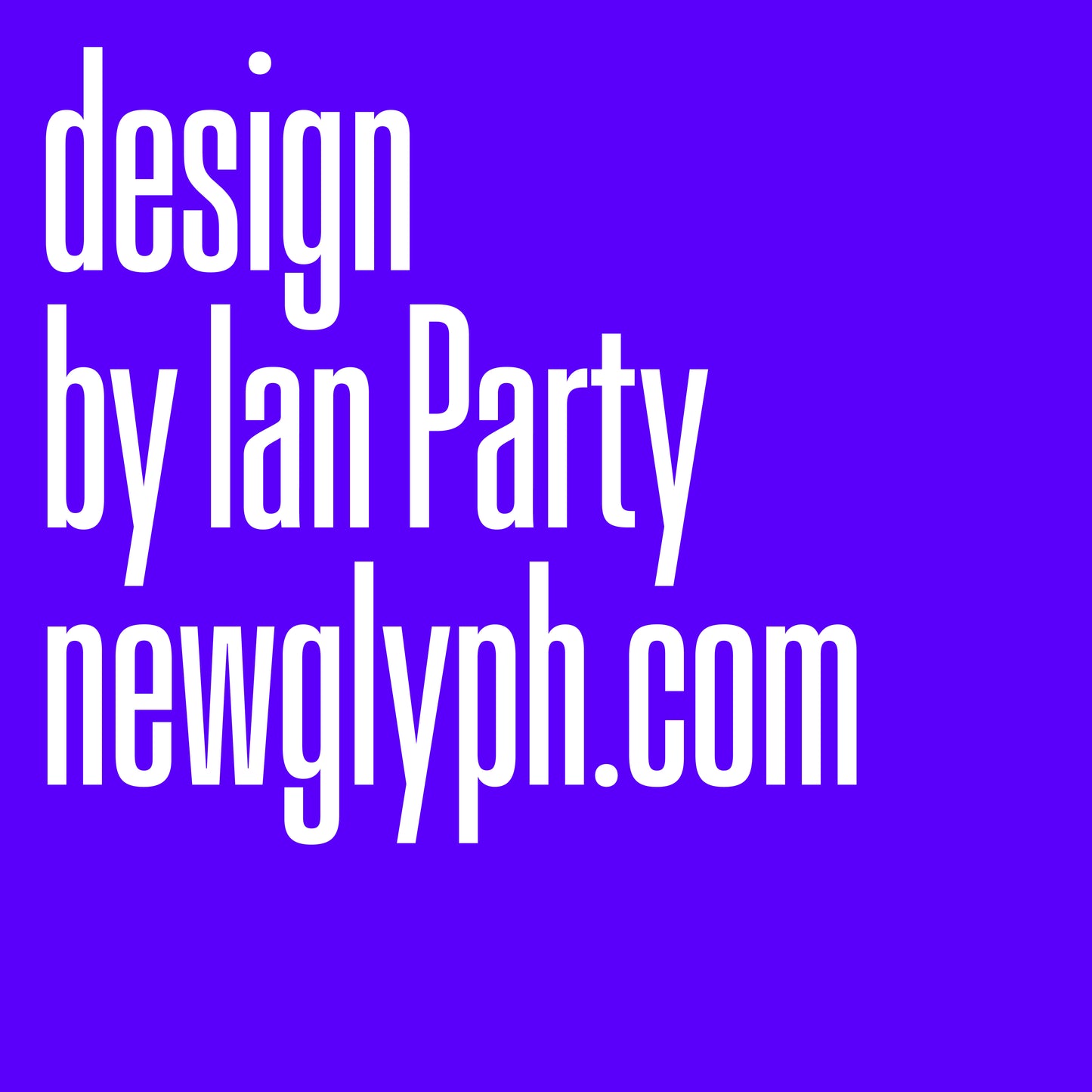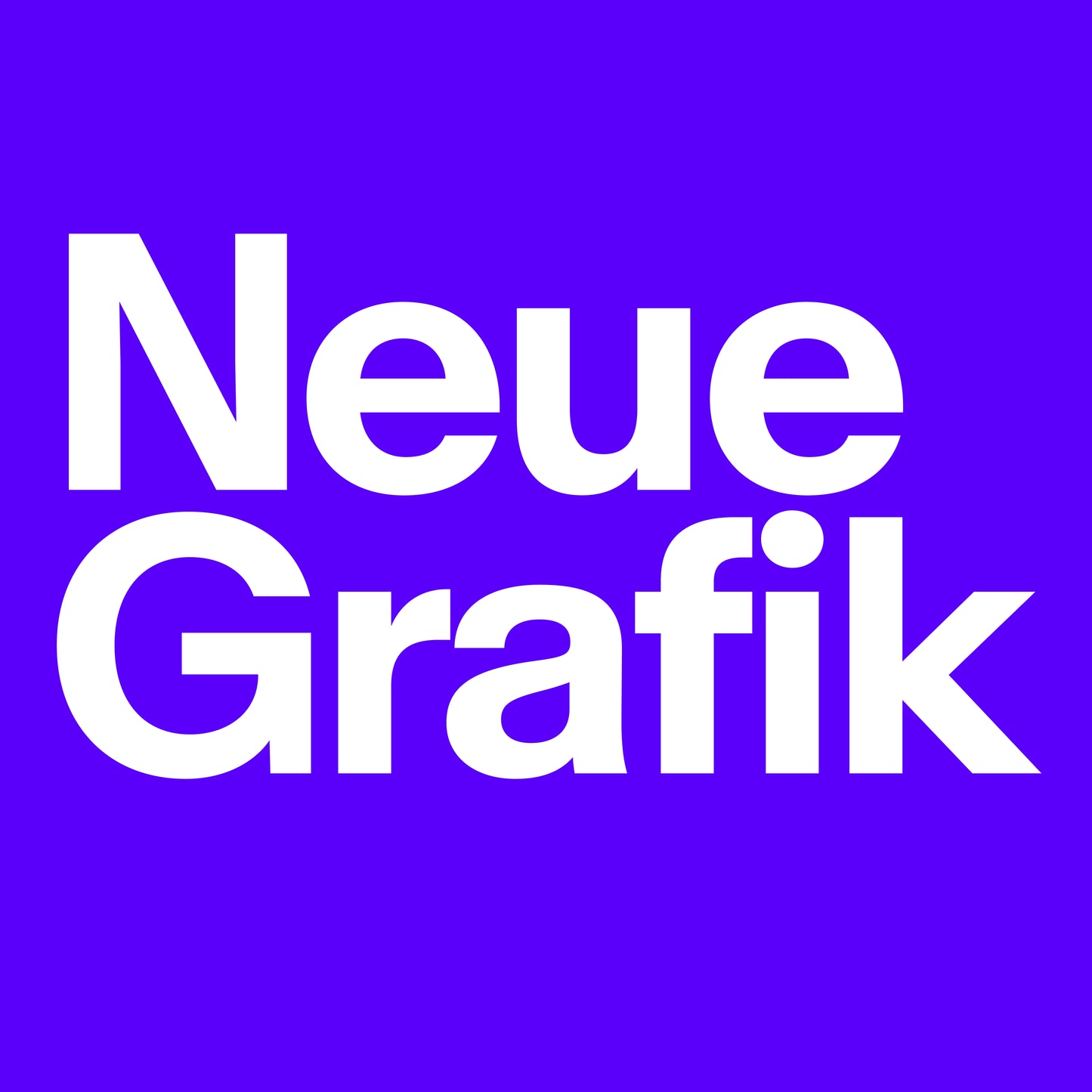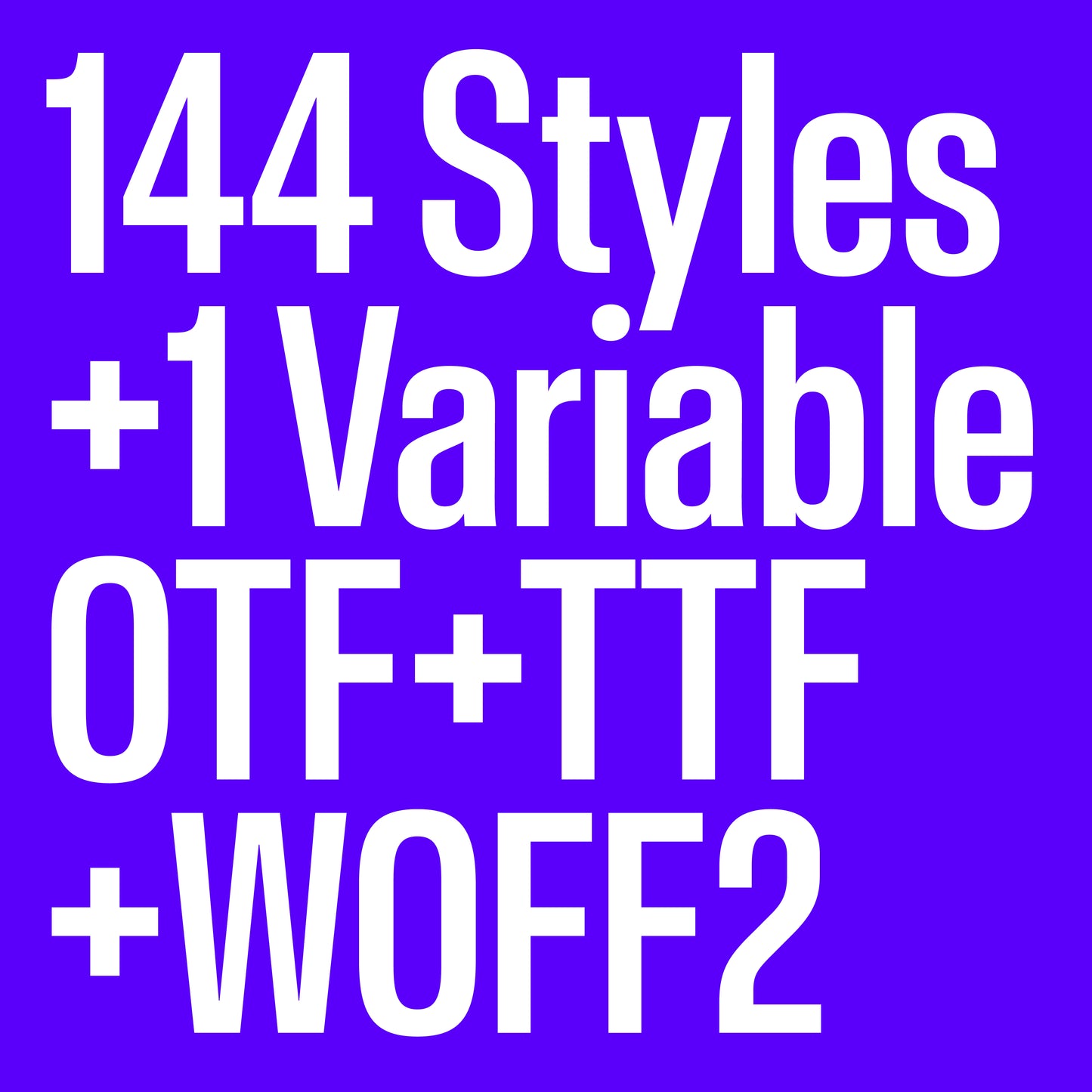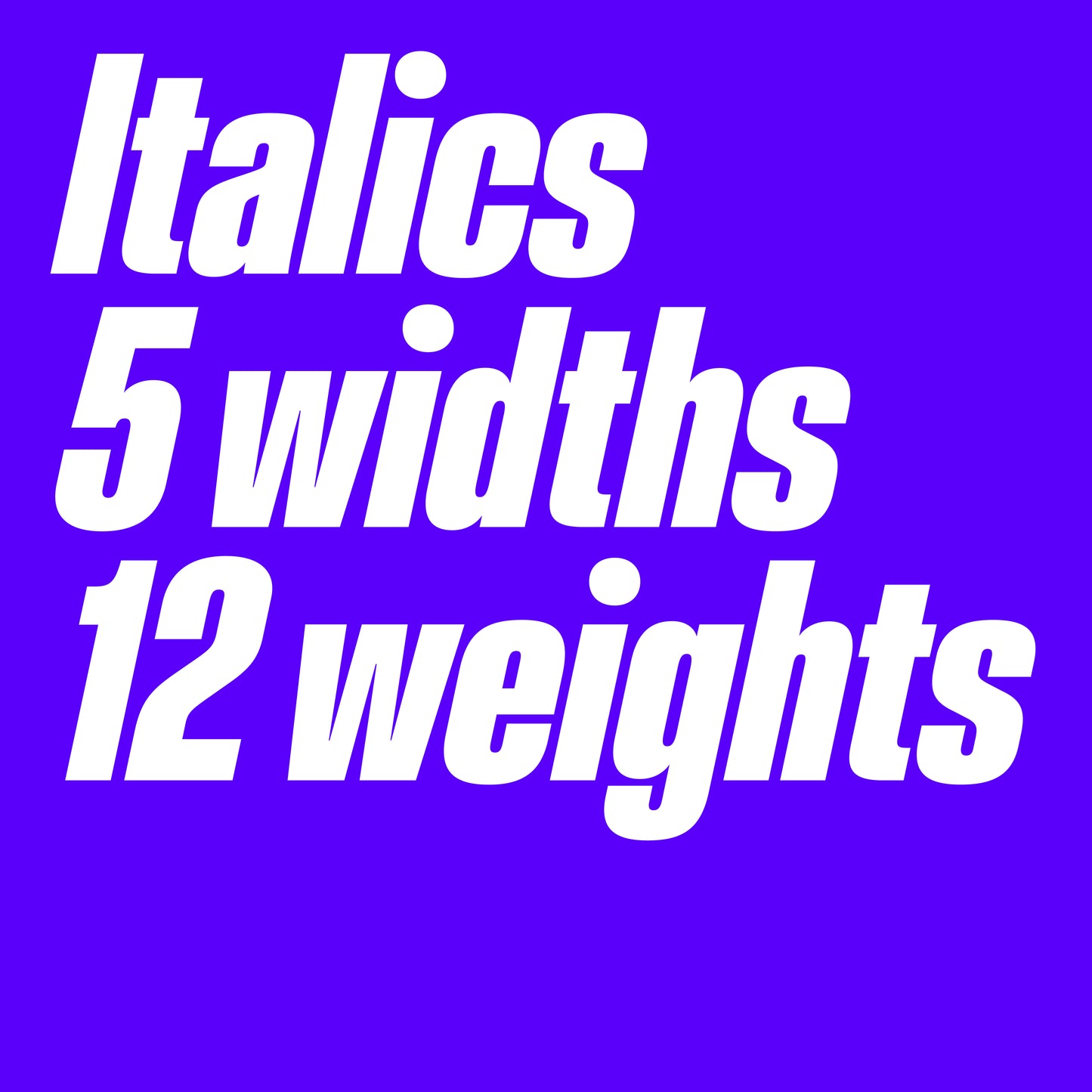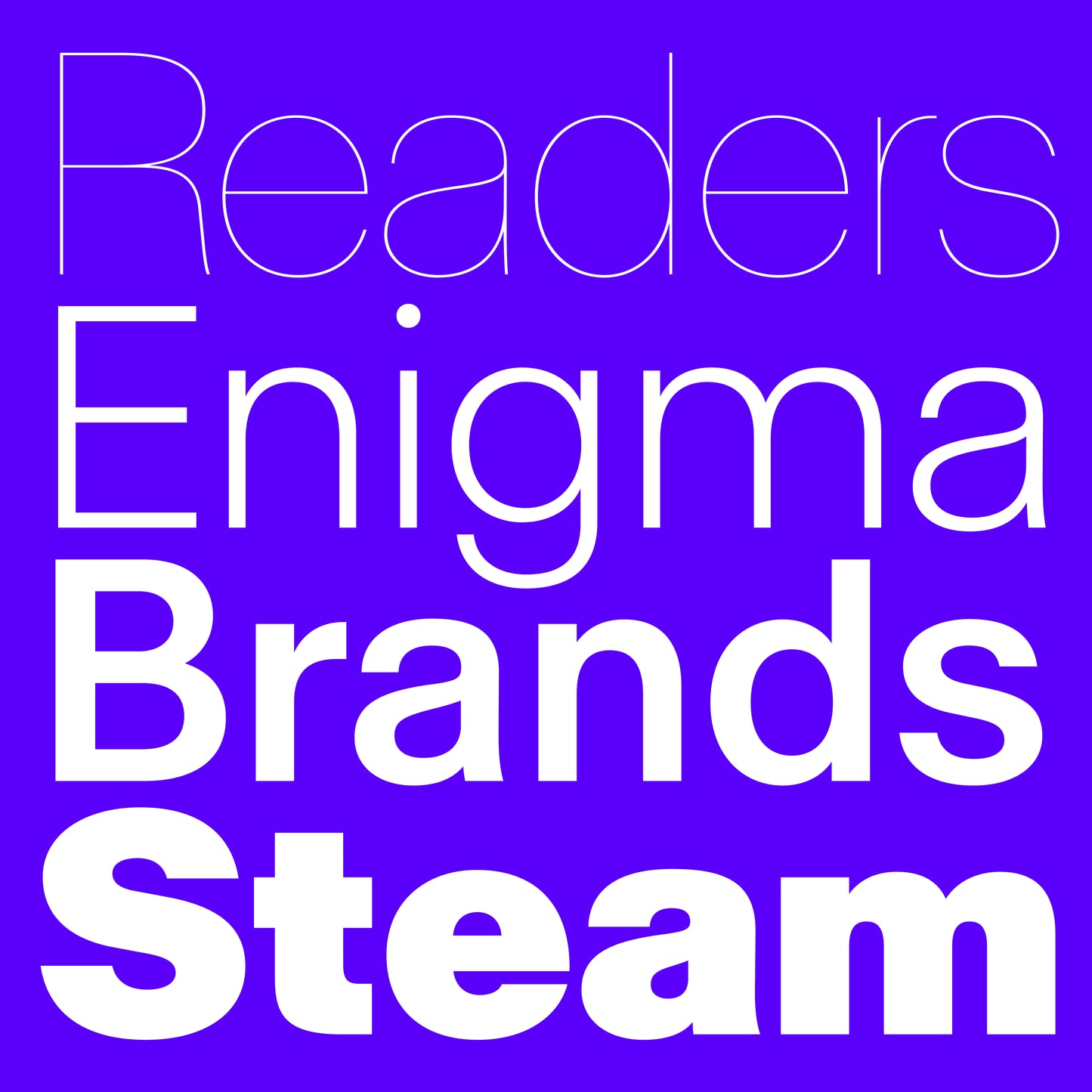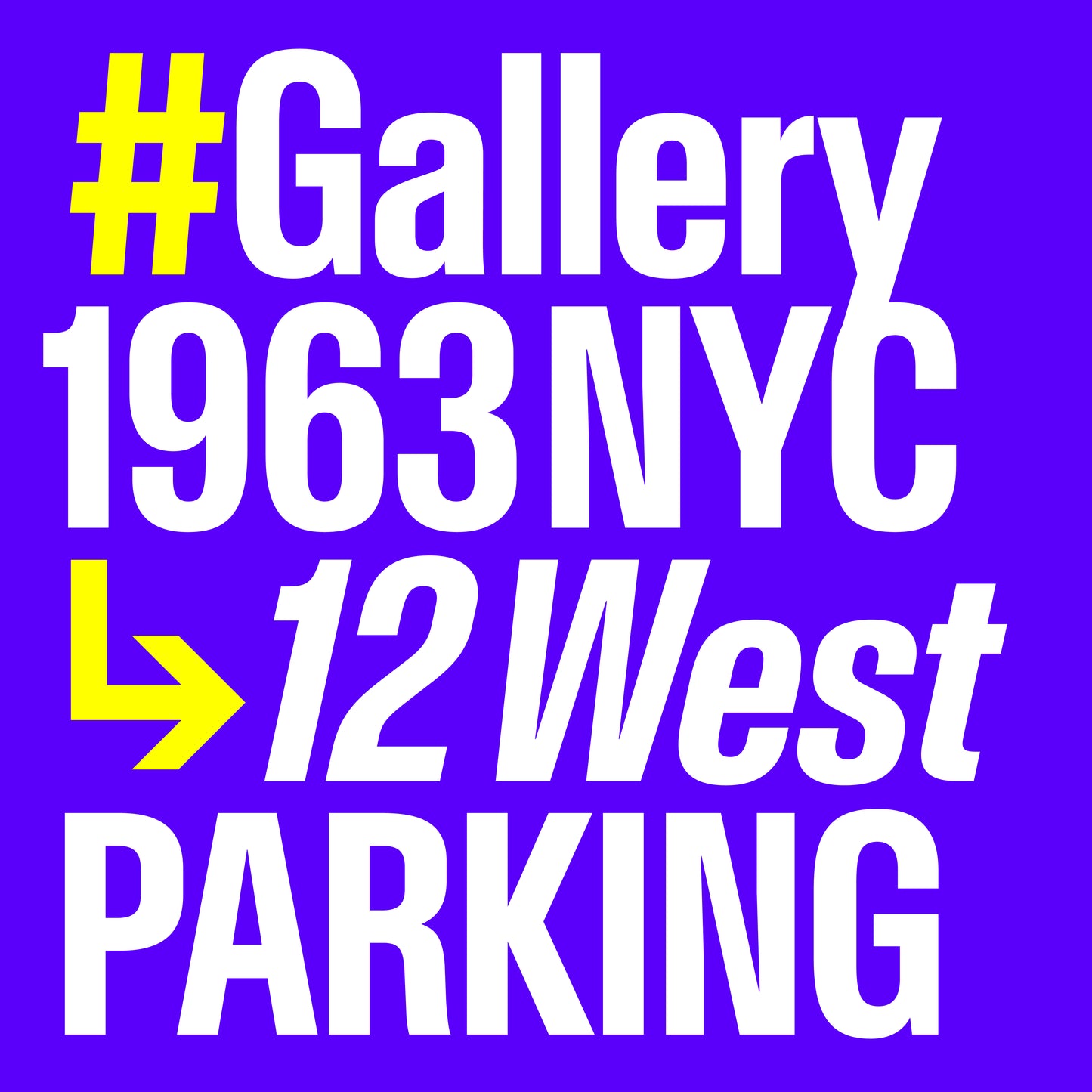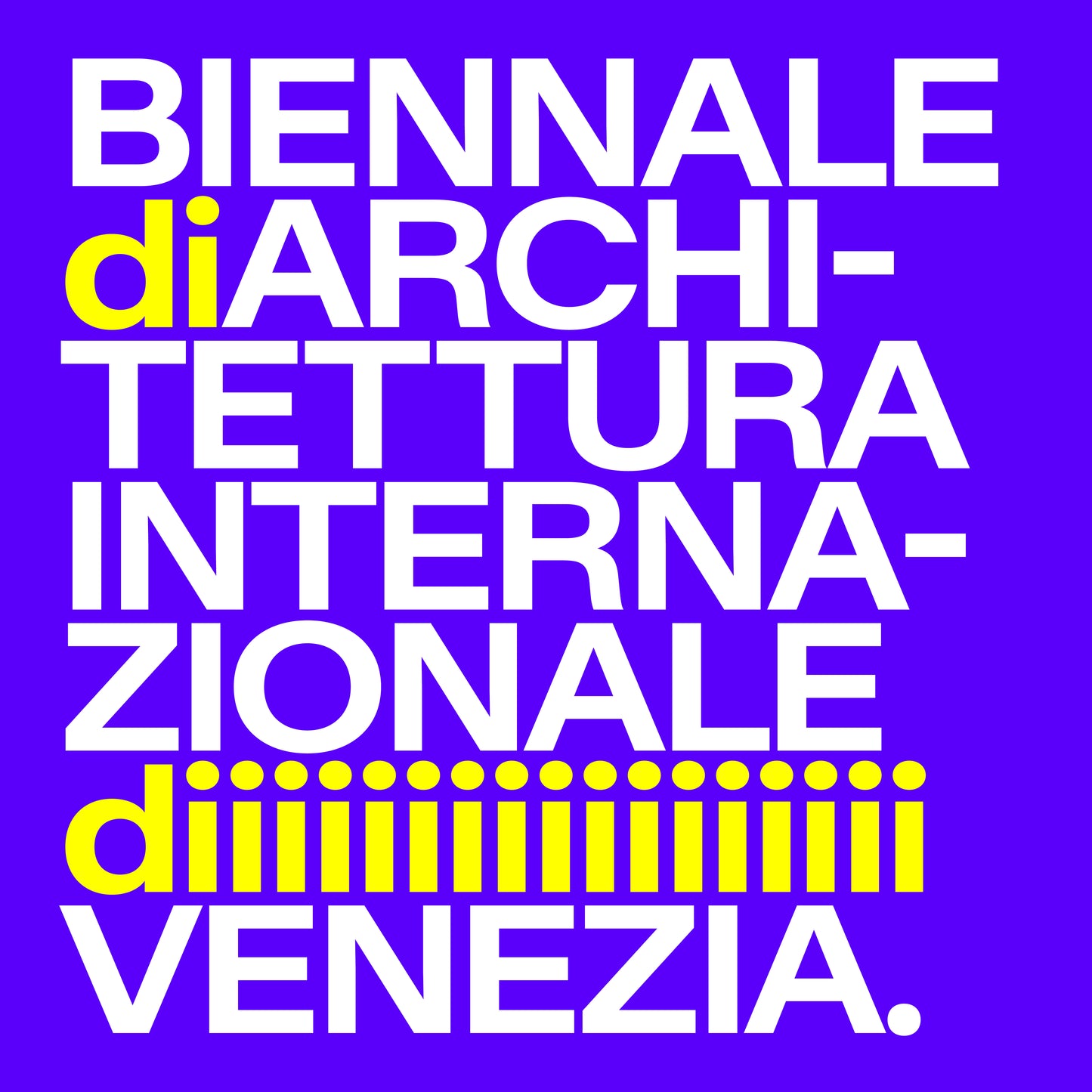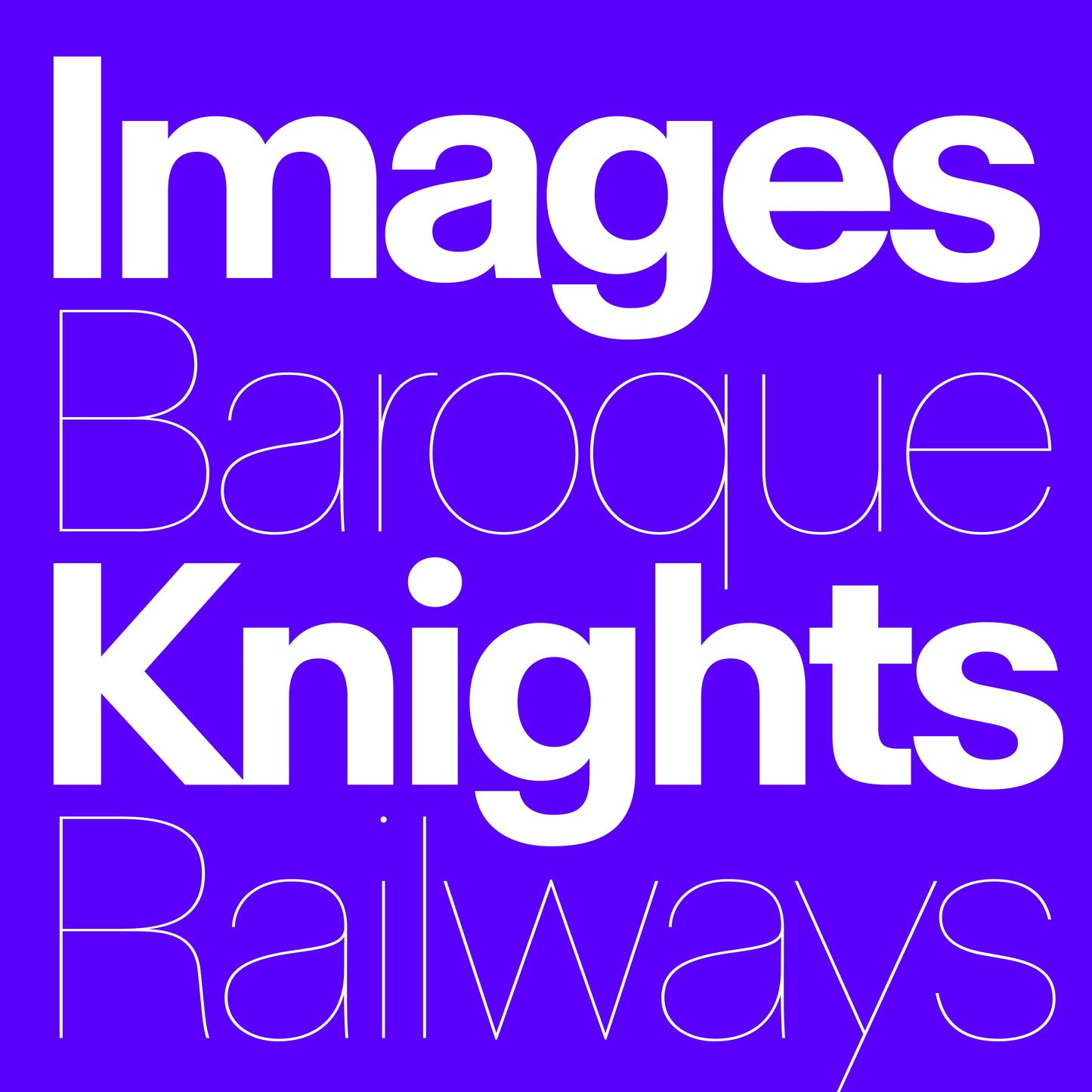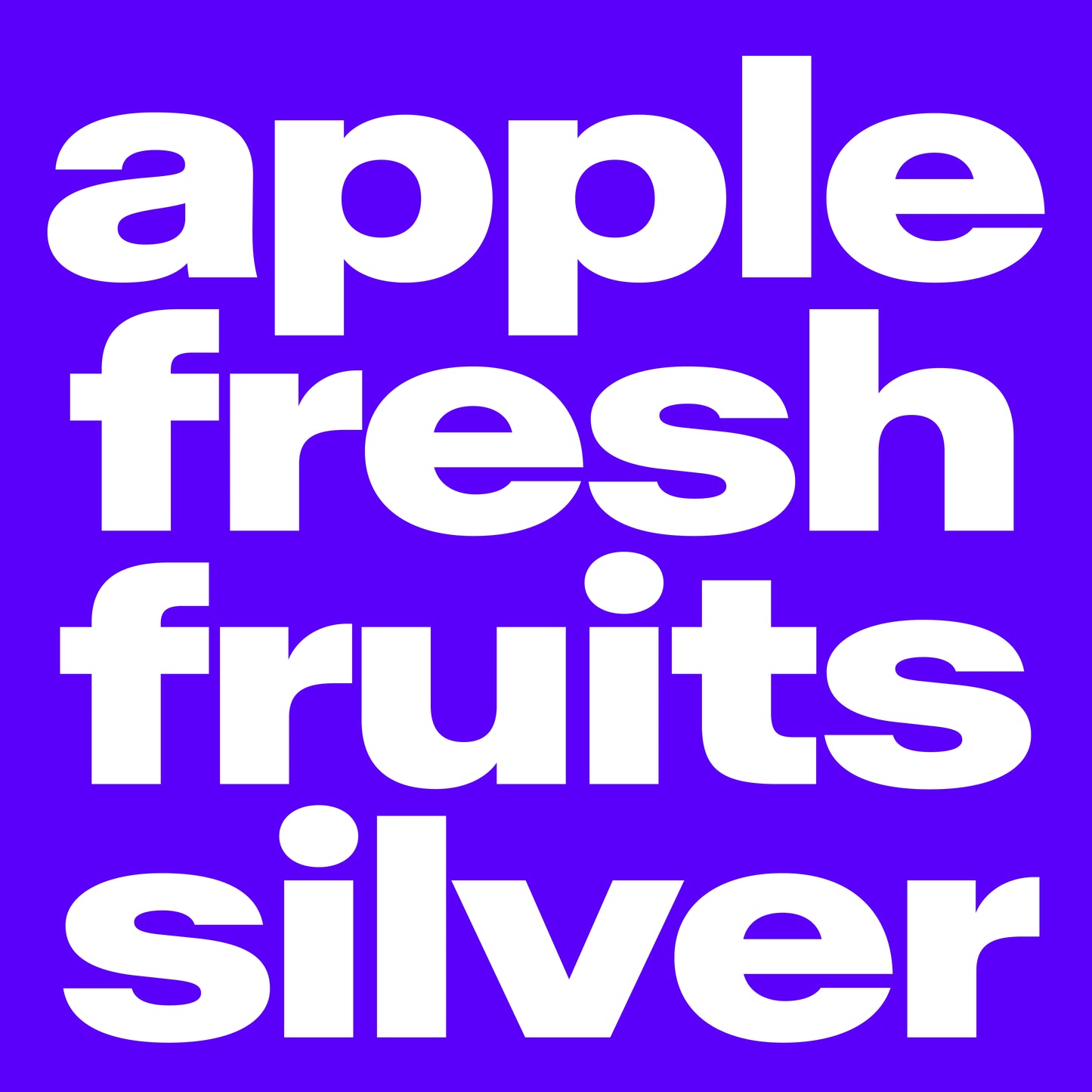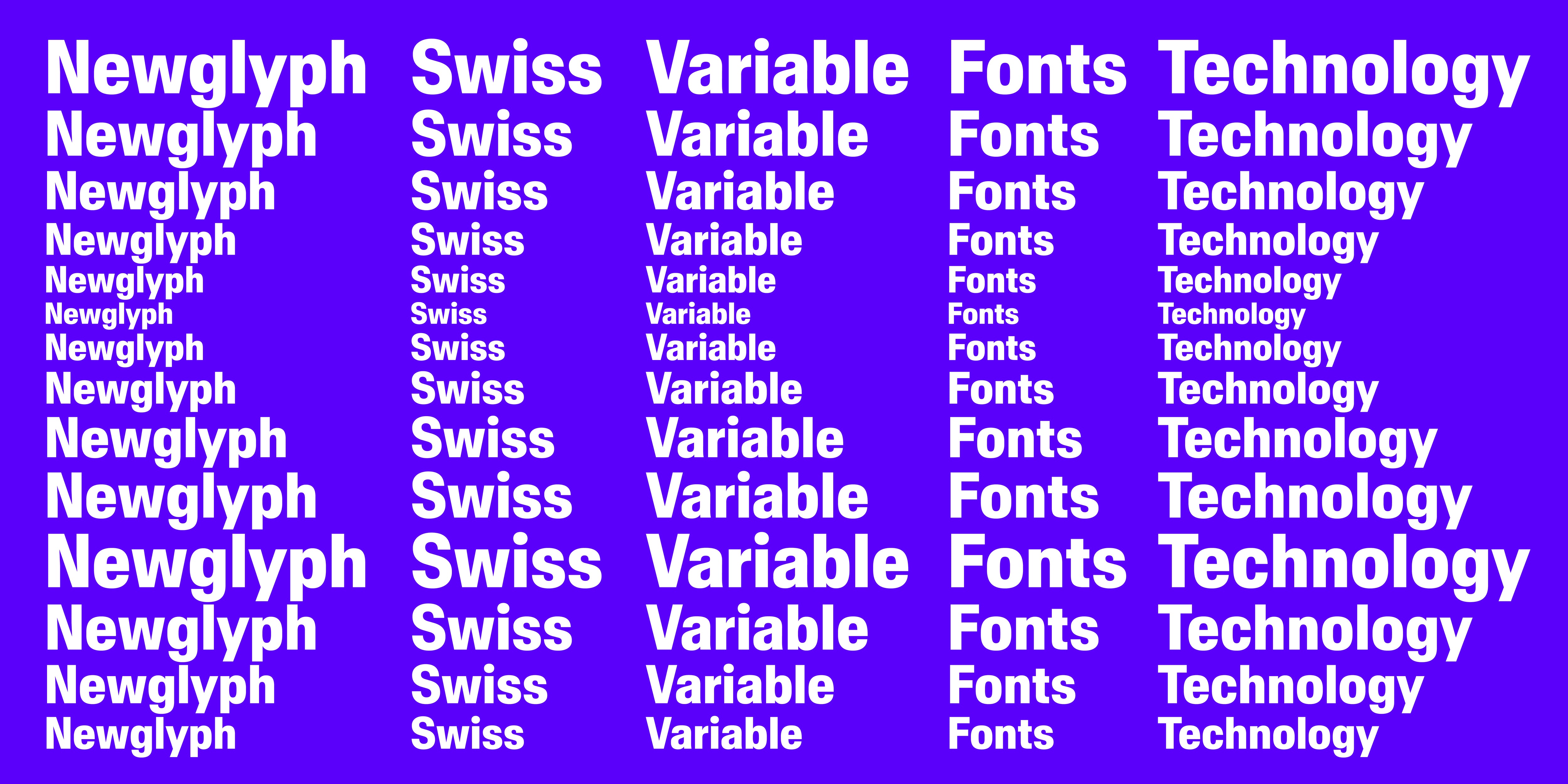
NeueGrafik
NeueGrafik, designed by Ian Party, is a variable grotesque typeface that embodies the clean, structured aesthetic of Swiss modernist typography while offering the flexibility required for contemporary design. Inspired by the precision of mid-century neo-grotesques like Helvetica and Univers, it refines and expands on their timeless principles—balancing neutrality, functionality, and geometric clarity.
Designed on a variable font grid system, NeueGrafik offers 144 styles and 434 glyphs per style, allowing seamless adaptability across print, web, and branding applications. Its single variable font feature provides full control over weight, width, and optical adjustments, making it a powerful tool for designers who demand both structure and creative freedom.
Whether used in editorial layouts, digital interfaces, or high-impact branding, NeueGrafik maintains a modernist approach while allowing for dynamic typographic exploration. Its precise forms, balanced proportions, and effortless legibility make it the ideal choice for those who appreciate minimalist sophistication with maximum versatility.